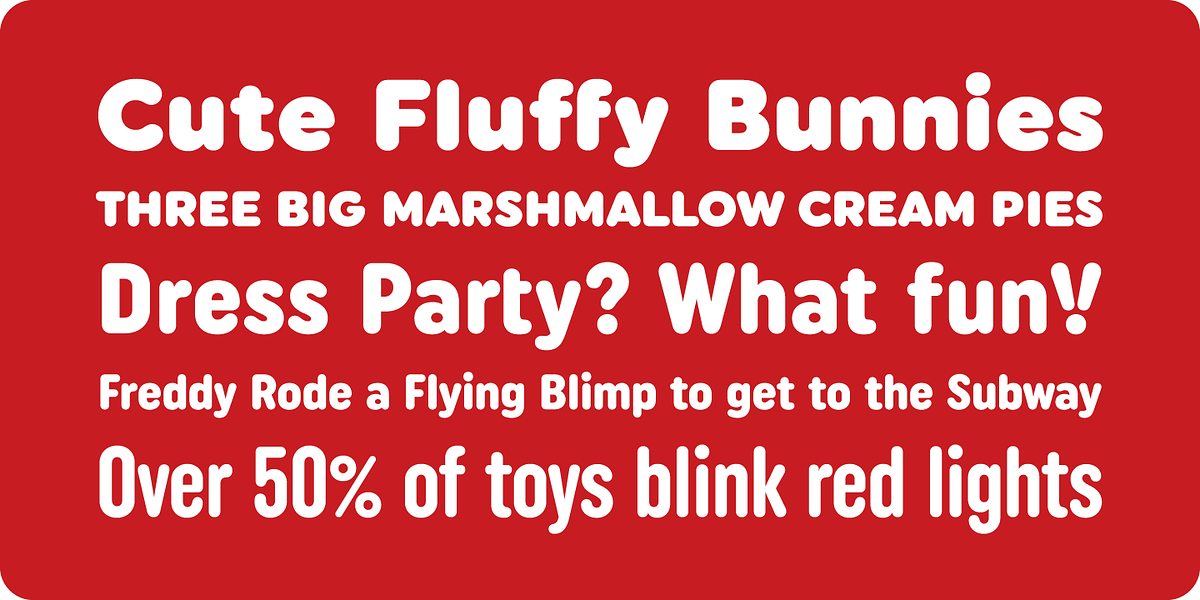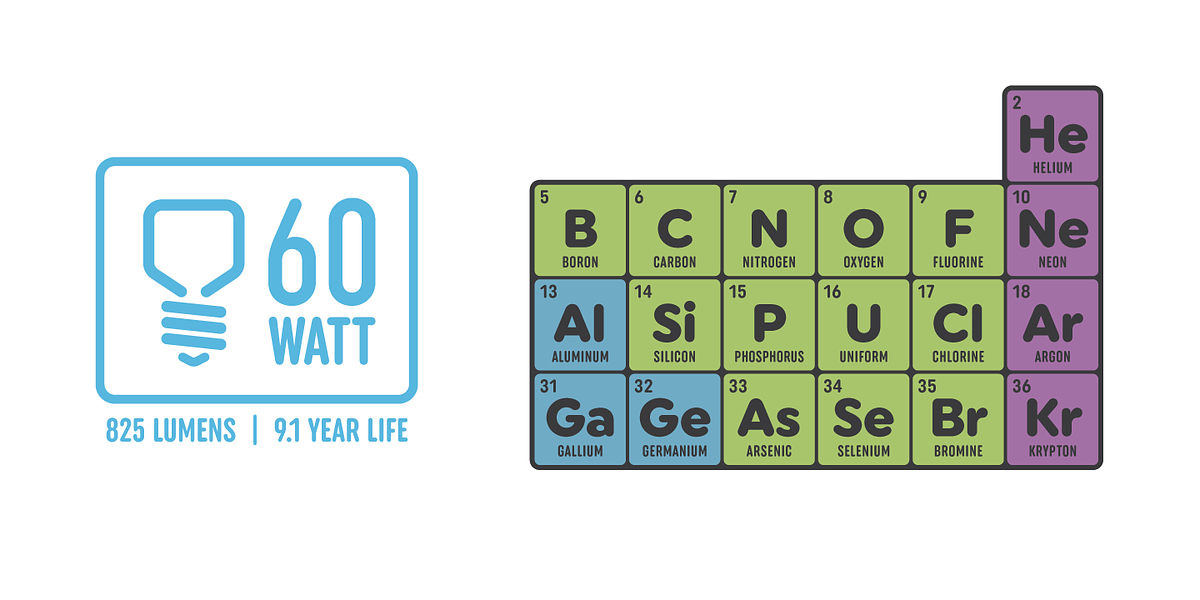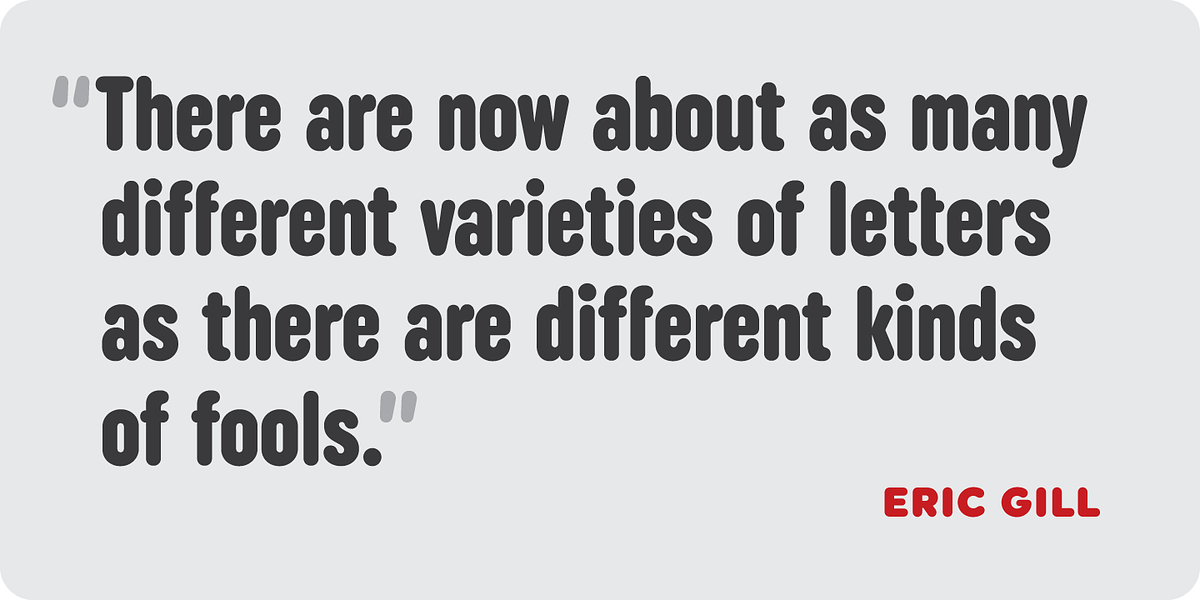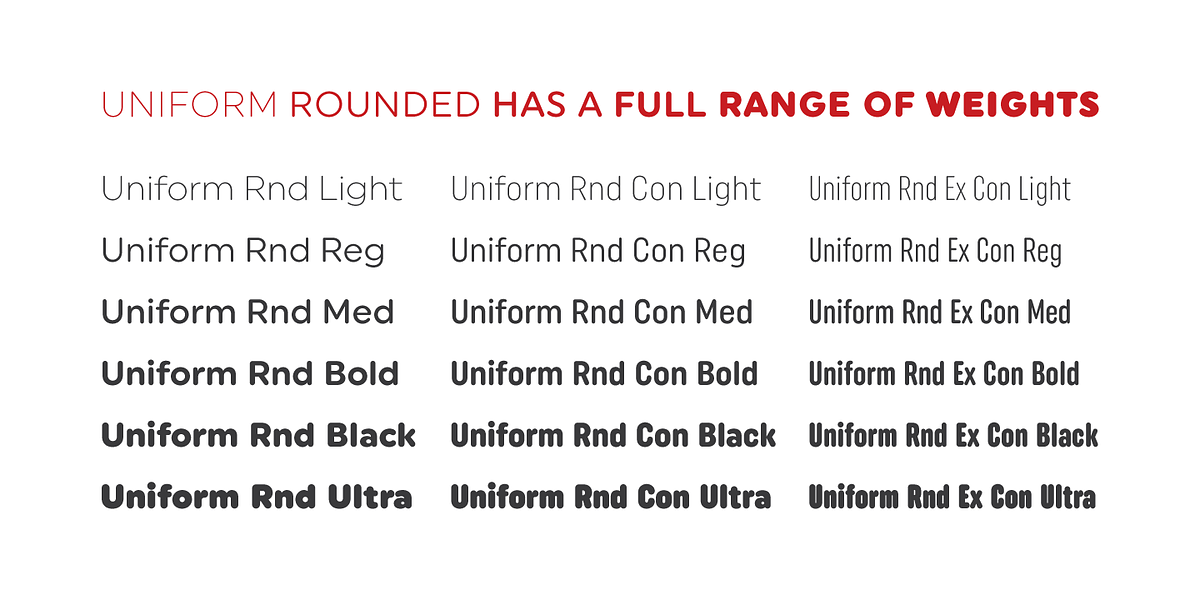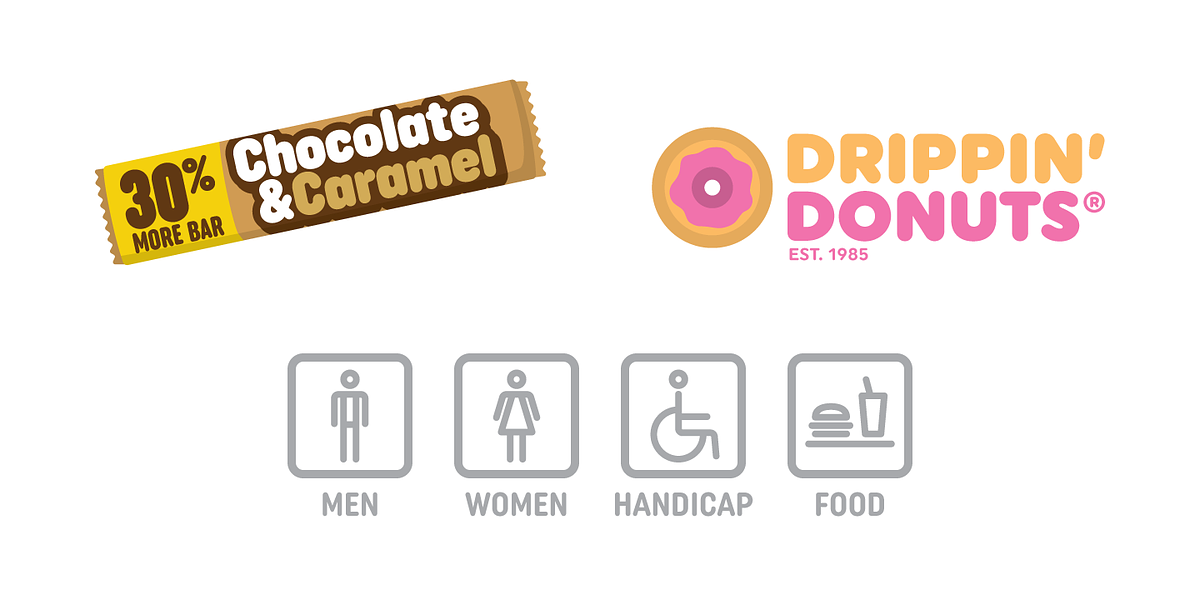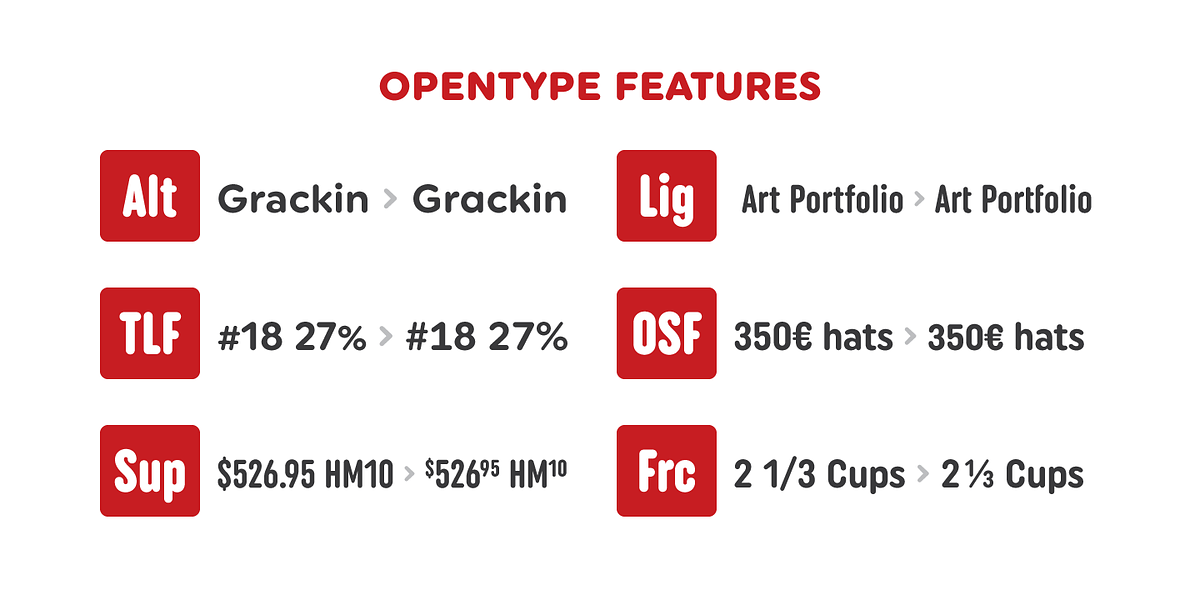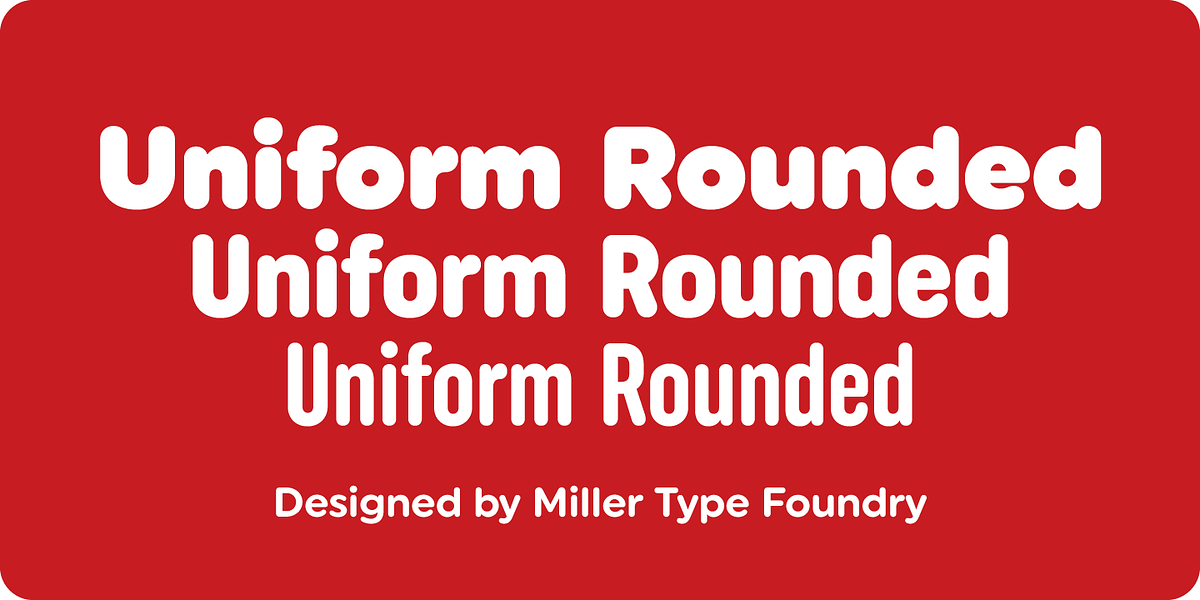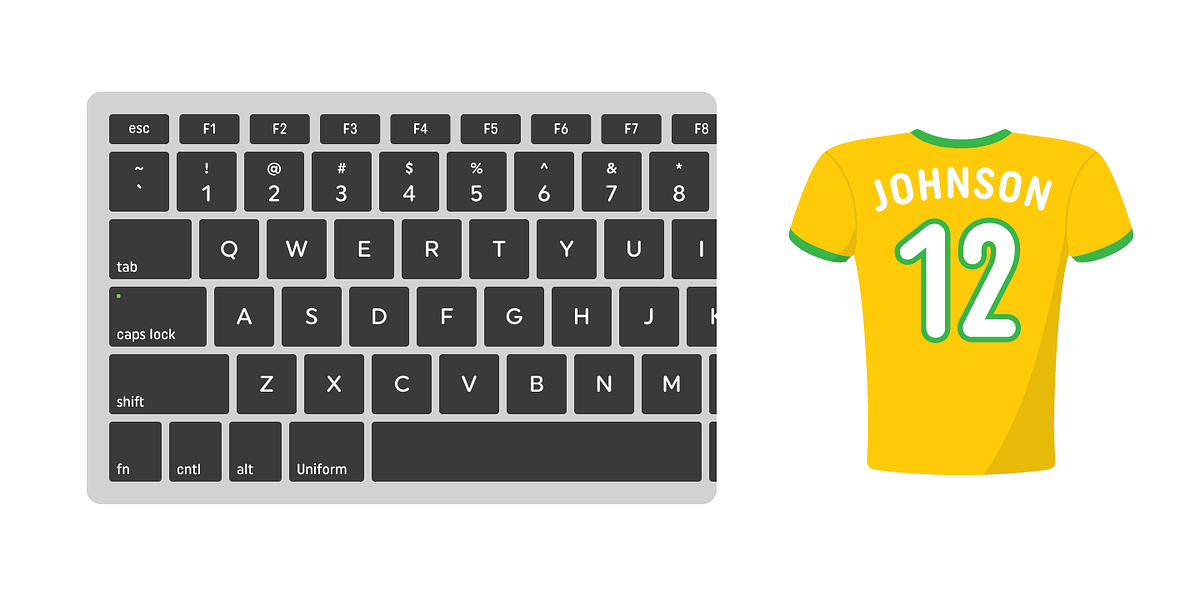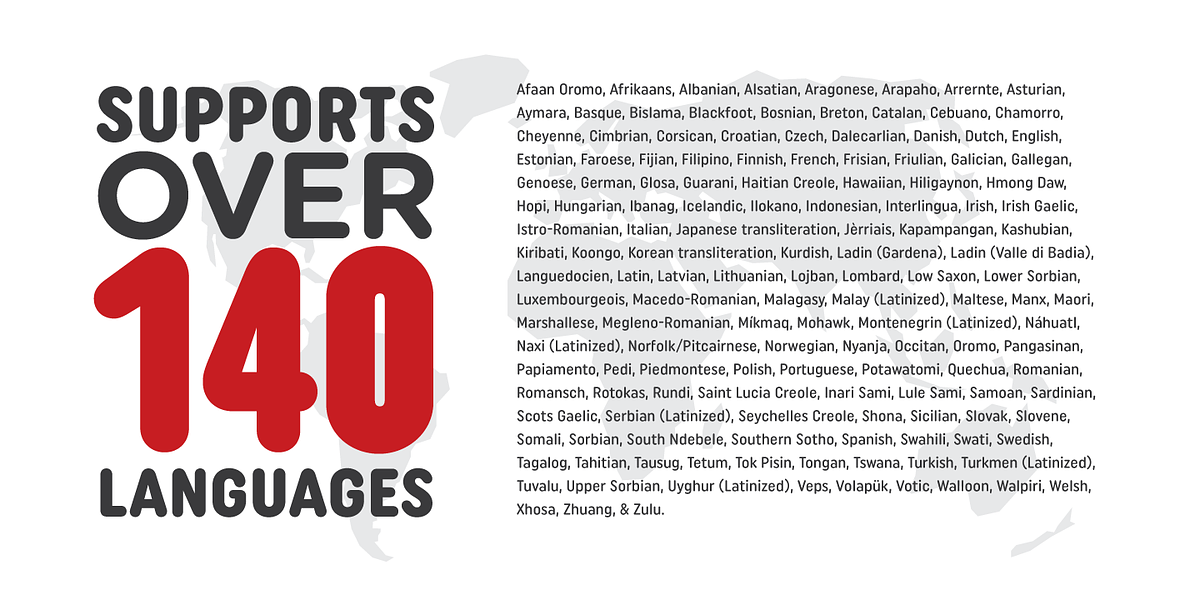
Uniform Rounded
Uniform Rounded is a multi-width geometric sans-serif typeface inspired by the circle. Each width (regular, condensed, and extra condensed) features six weights, resulting in a highly versatile font family. The design incorporates rounded elements, creating a playful and modern aesthetic. Uniform Rounded also includes OpenType features such as old style figures, tabular lining figures, alternate characters, and ligatures.